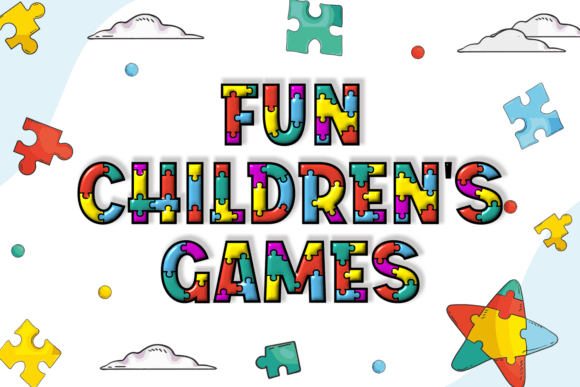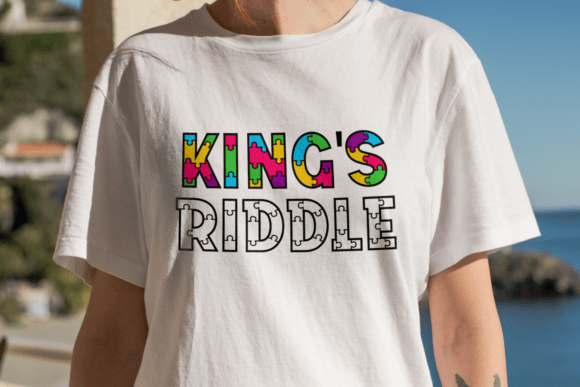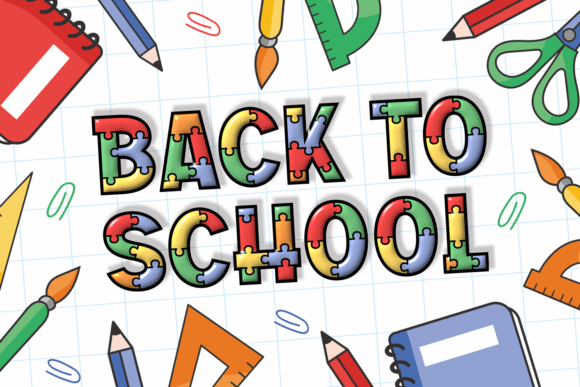
Introduction to Doshai Mazzle Font
Unveiling β€œDoshai Mazzle Font,” a whimsical yet distinctive typeface that reverberates with the zest of puzzle-piece inspired illustrations.
Its charm lies in its innovative design, showcasing letters formed from interlinked, vibrant puzzle segments, emitting a three-dimensional and toy-like aesthetic that excites the inner child in everyone Straying from the norms of solid fonts, β€œDoshai Mazzle” thrives on its segmented architecture, crafting an intriguing narrative of assembling together piece by piece.